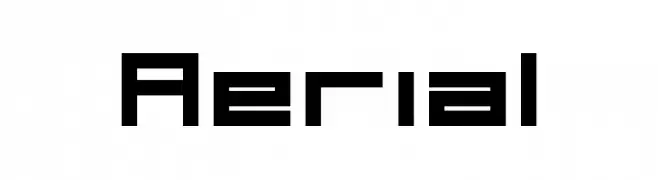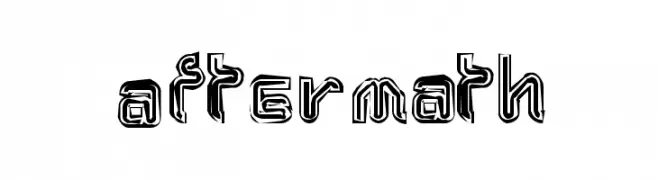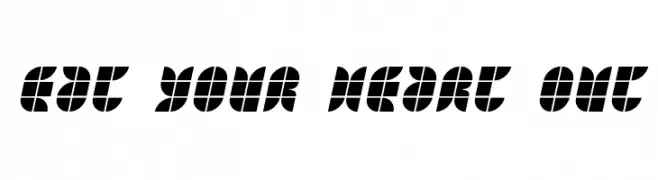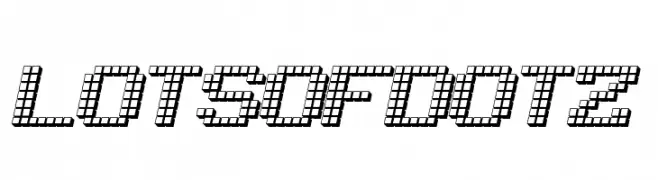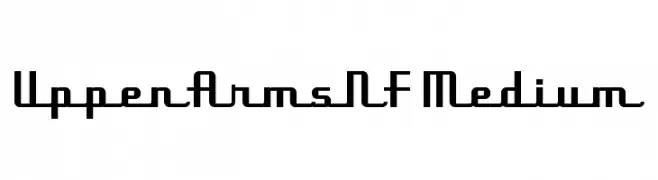
A geometric, modern font with angular uppercase and fluid lowercase letters.
A bold, geometric font with a digital, pixelated style.
A geometric, angular font with a futuristic and minimalist design.
A bold, segmented geometric font with a modern and playful style.
A pixelated, dot-based font with a modern, tech-inspired style.
A bold, geometric font with a futuristic and technical design.